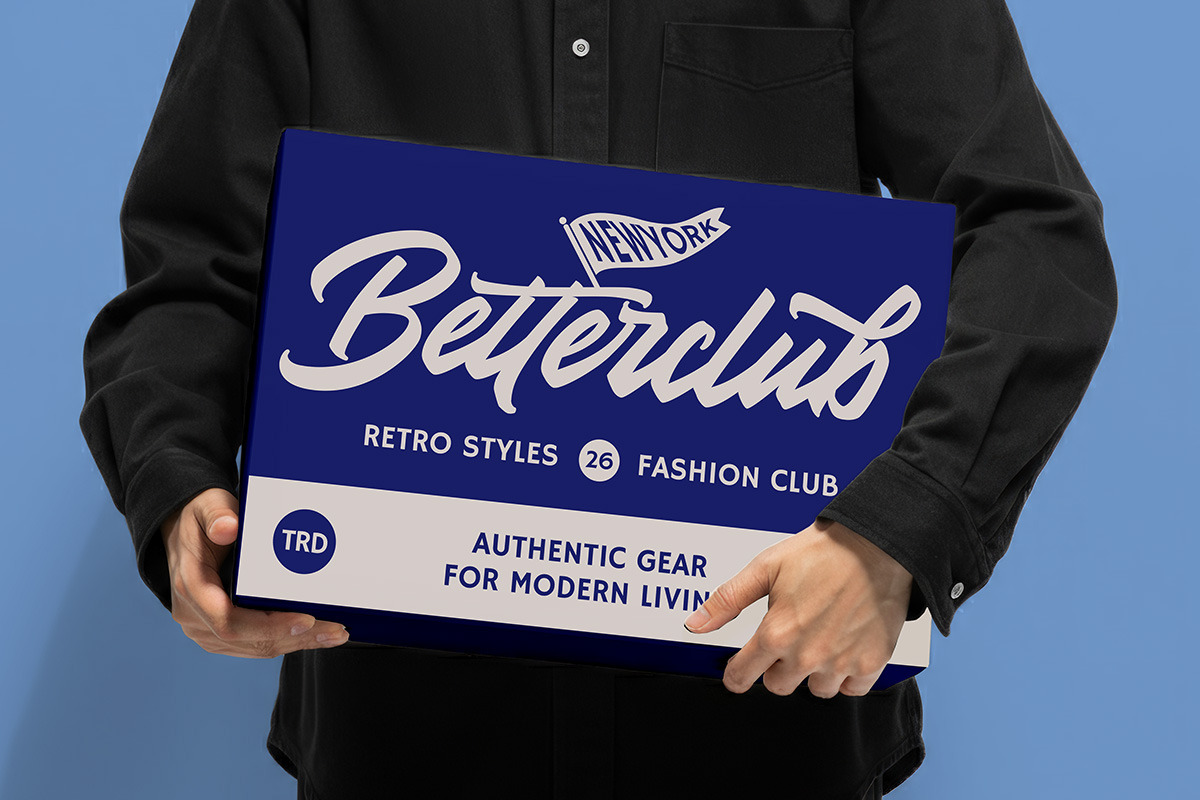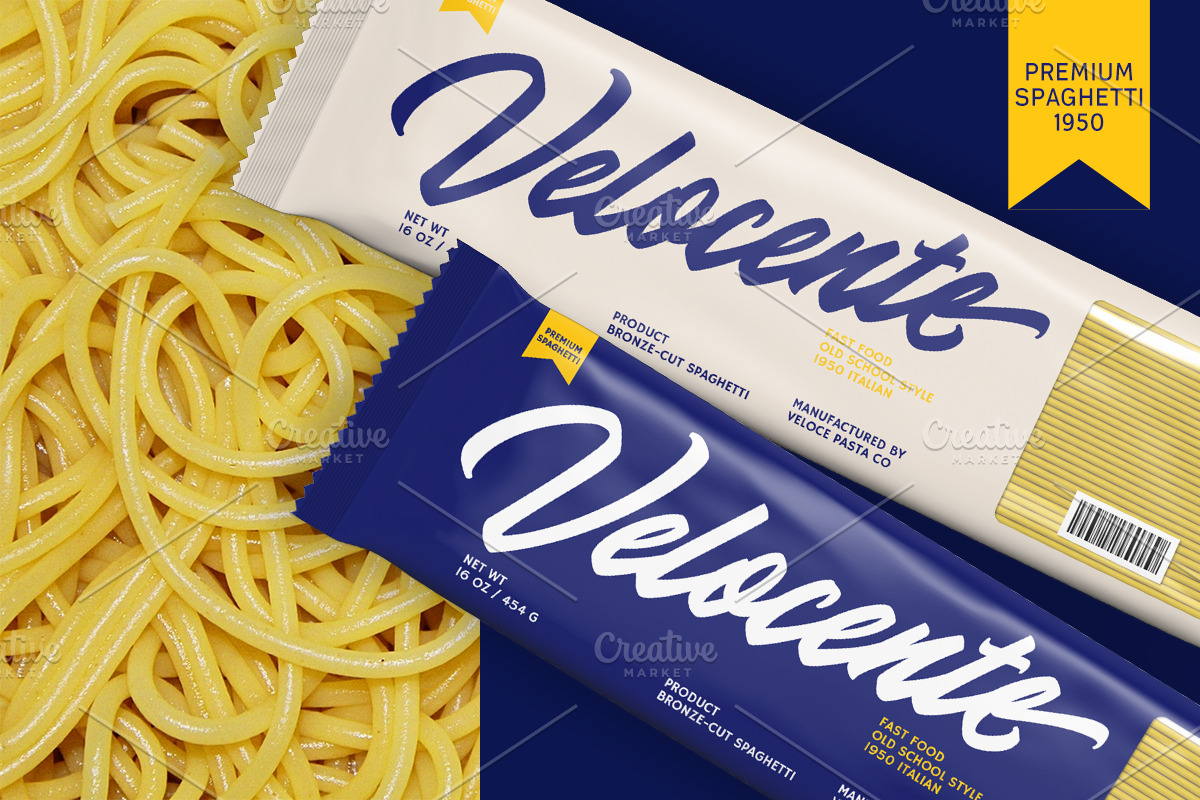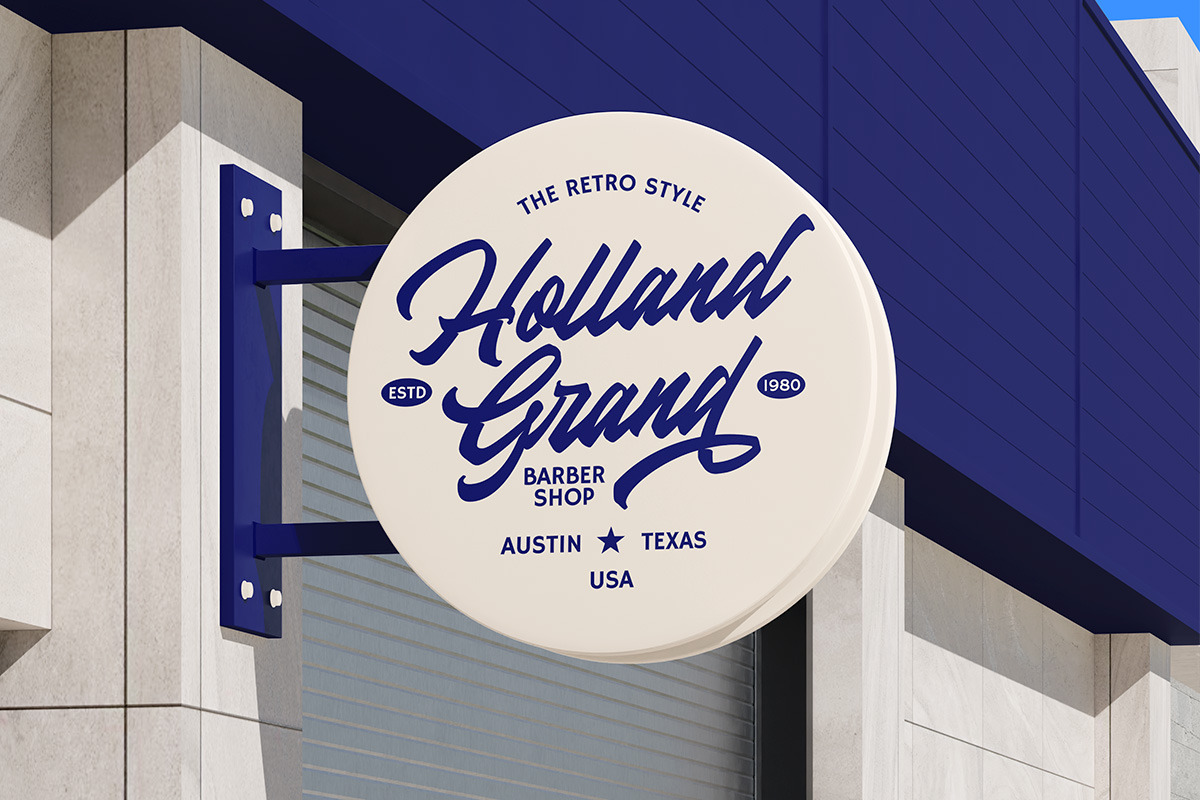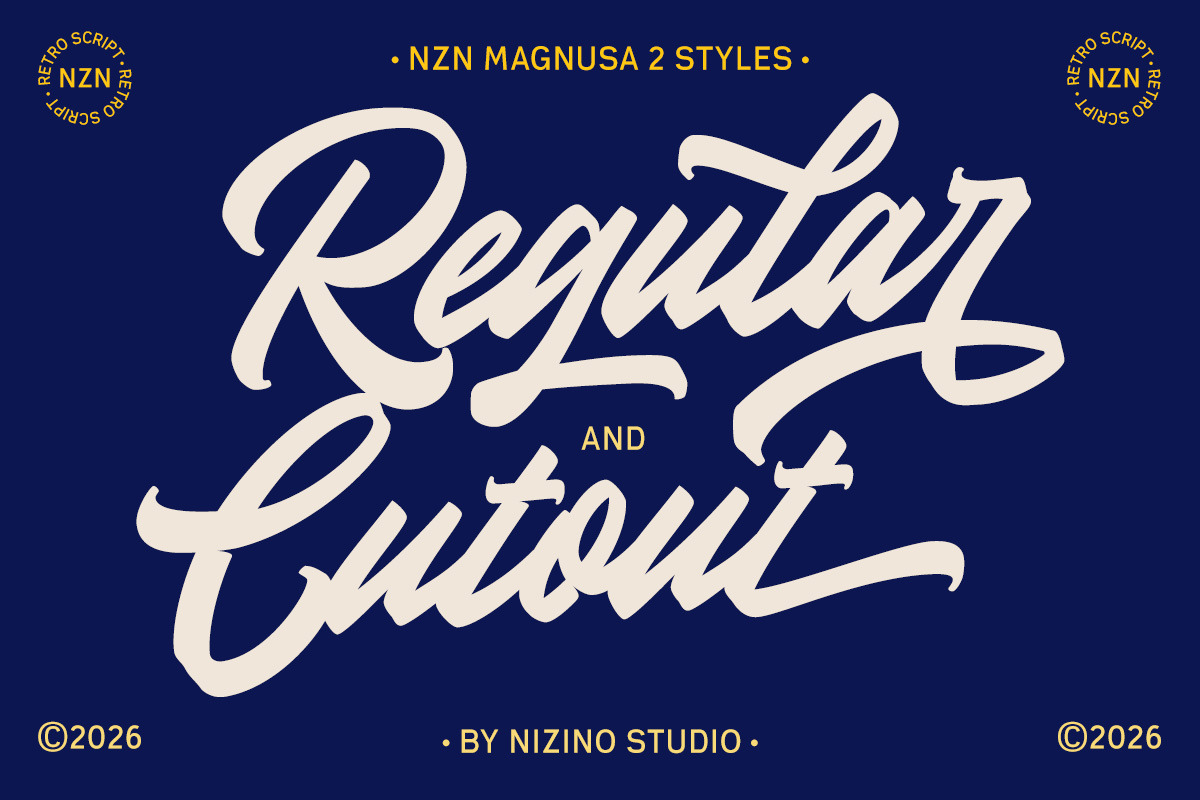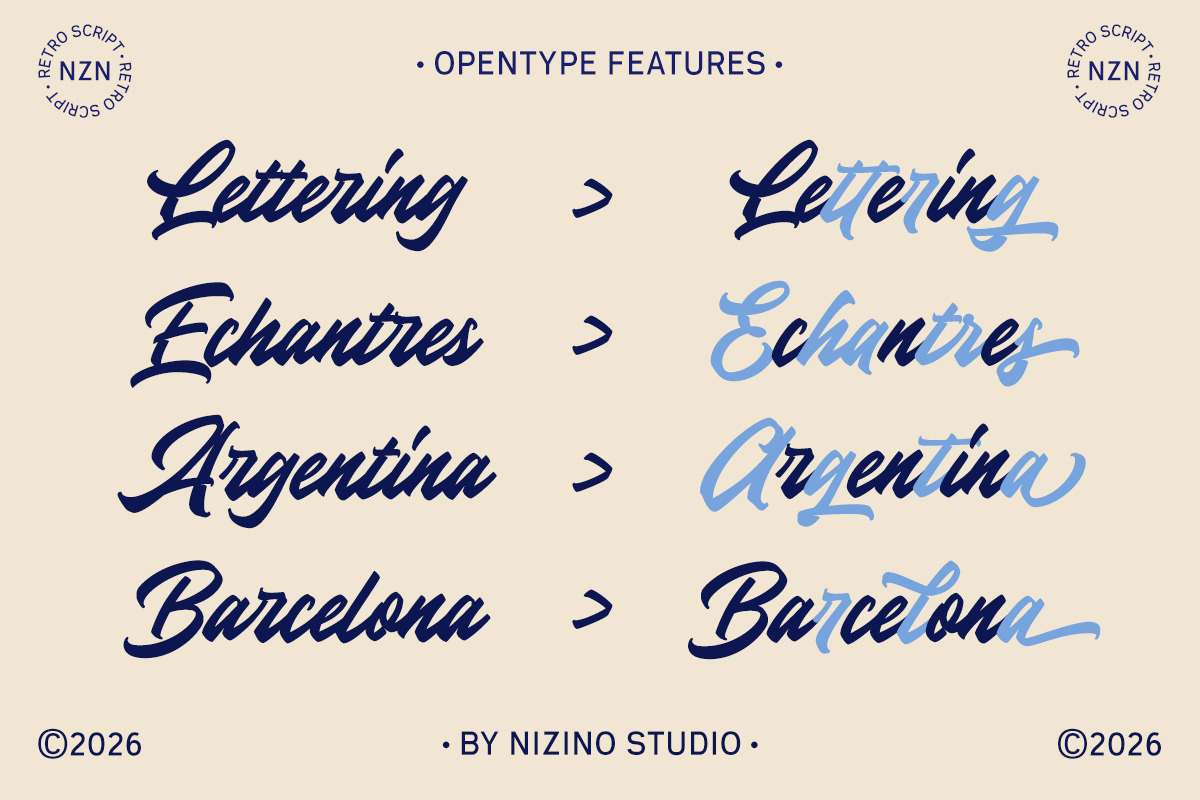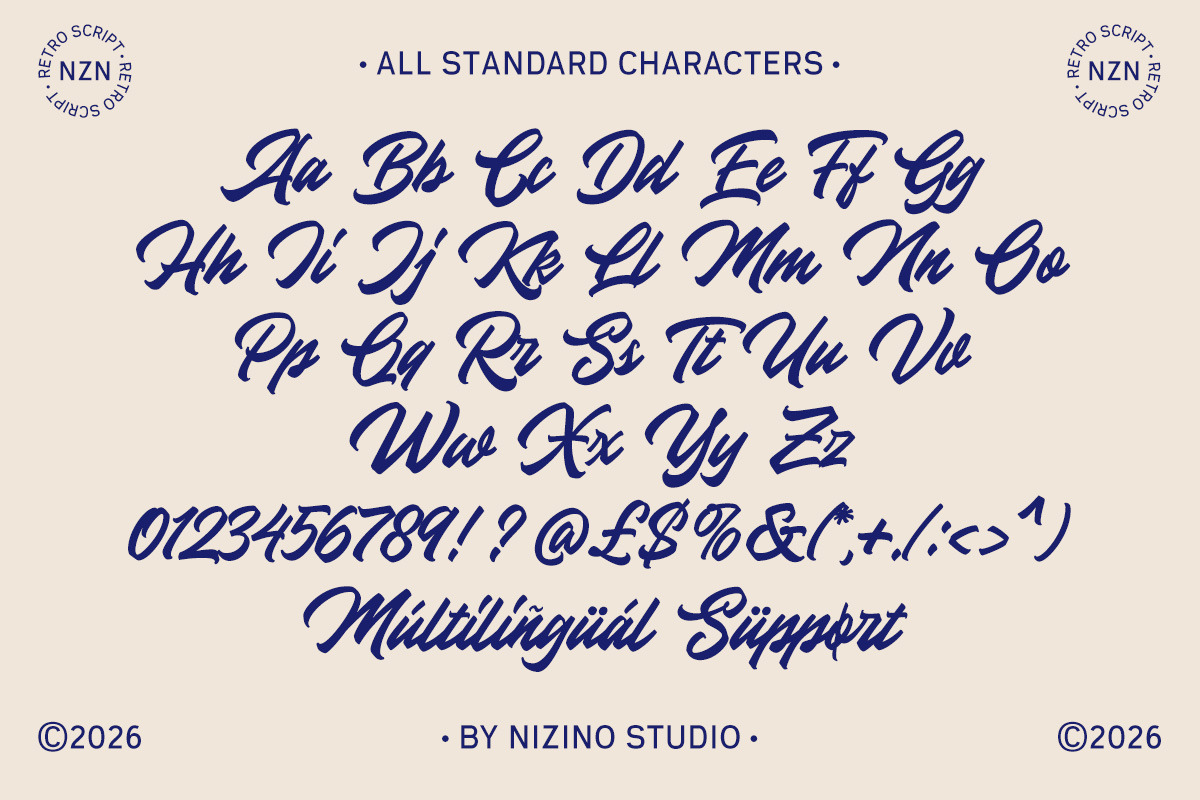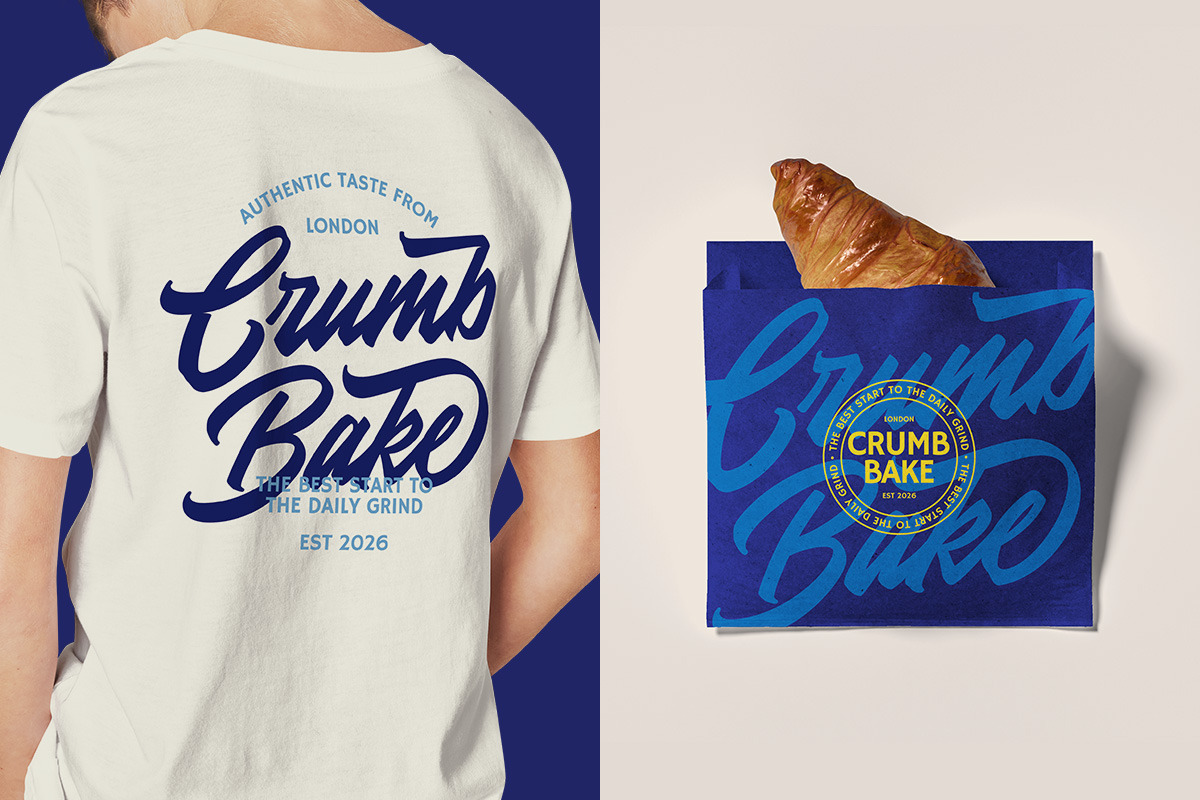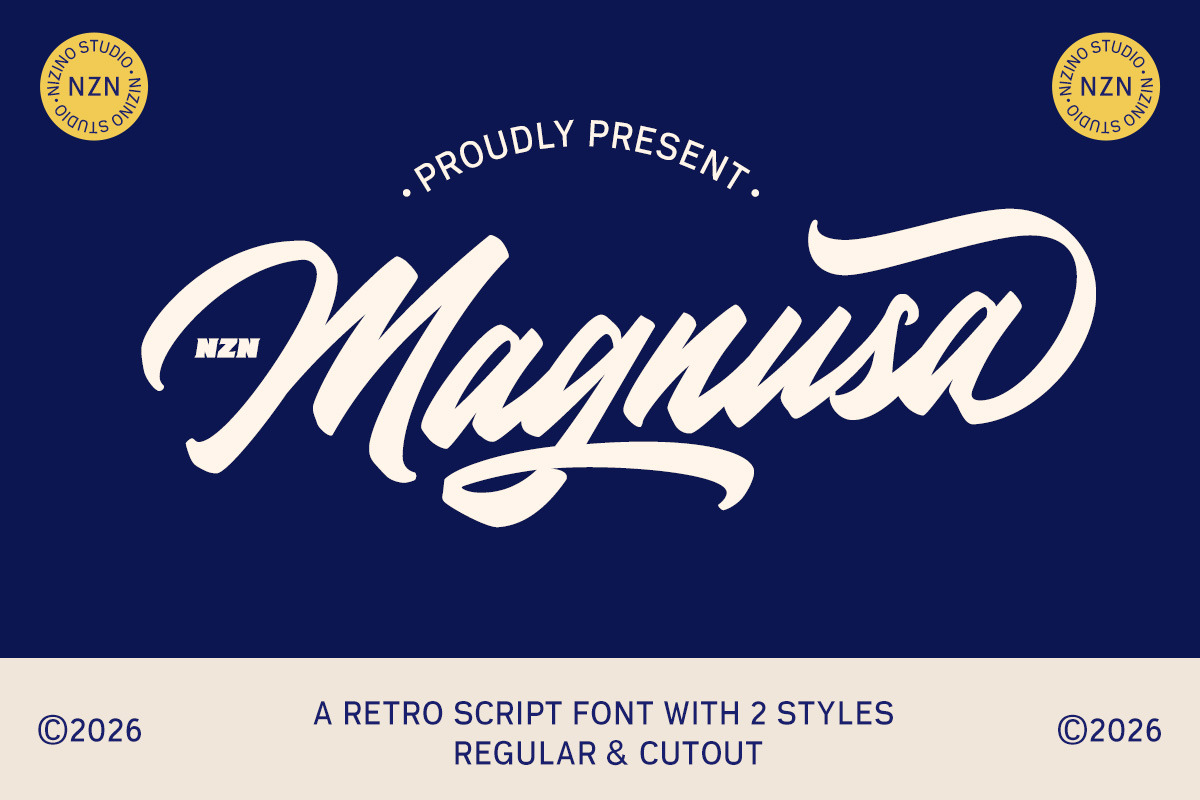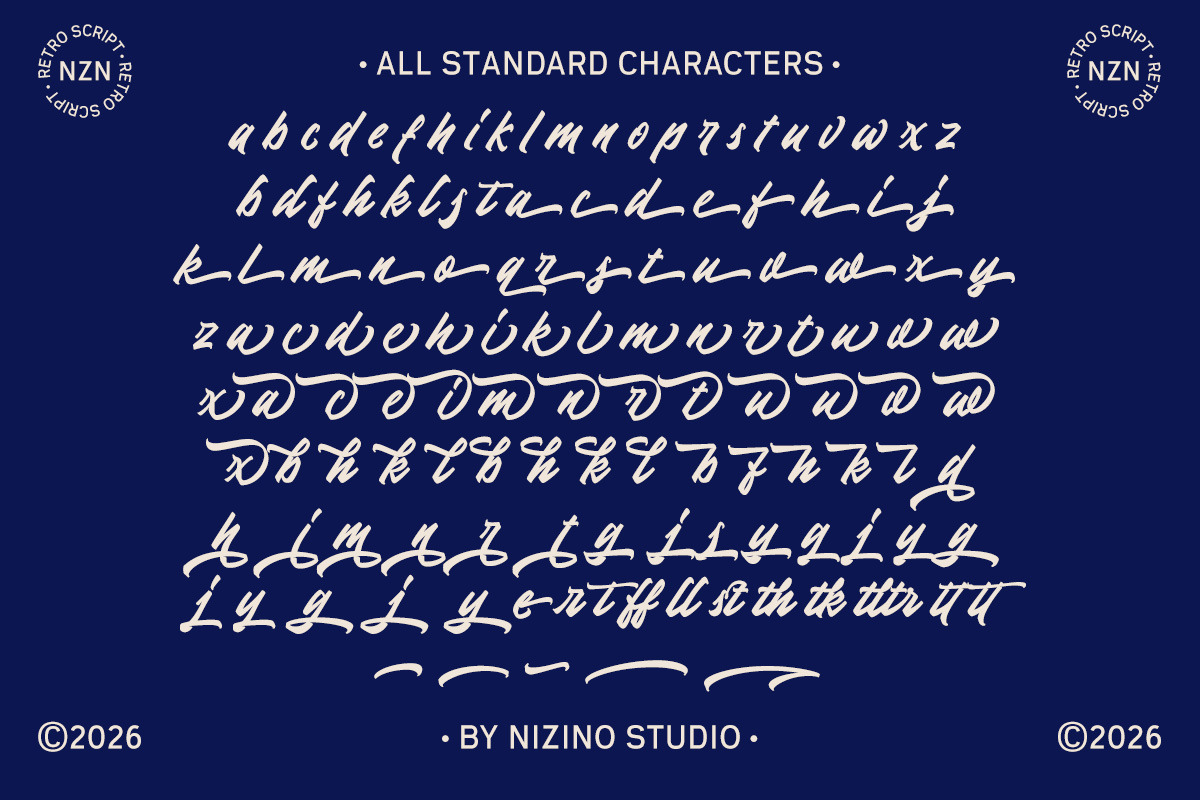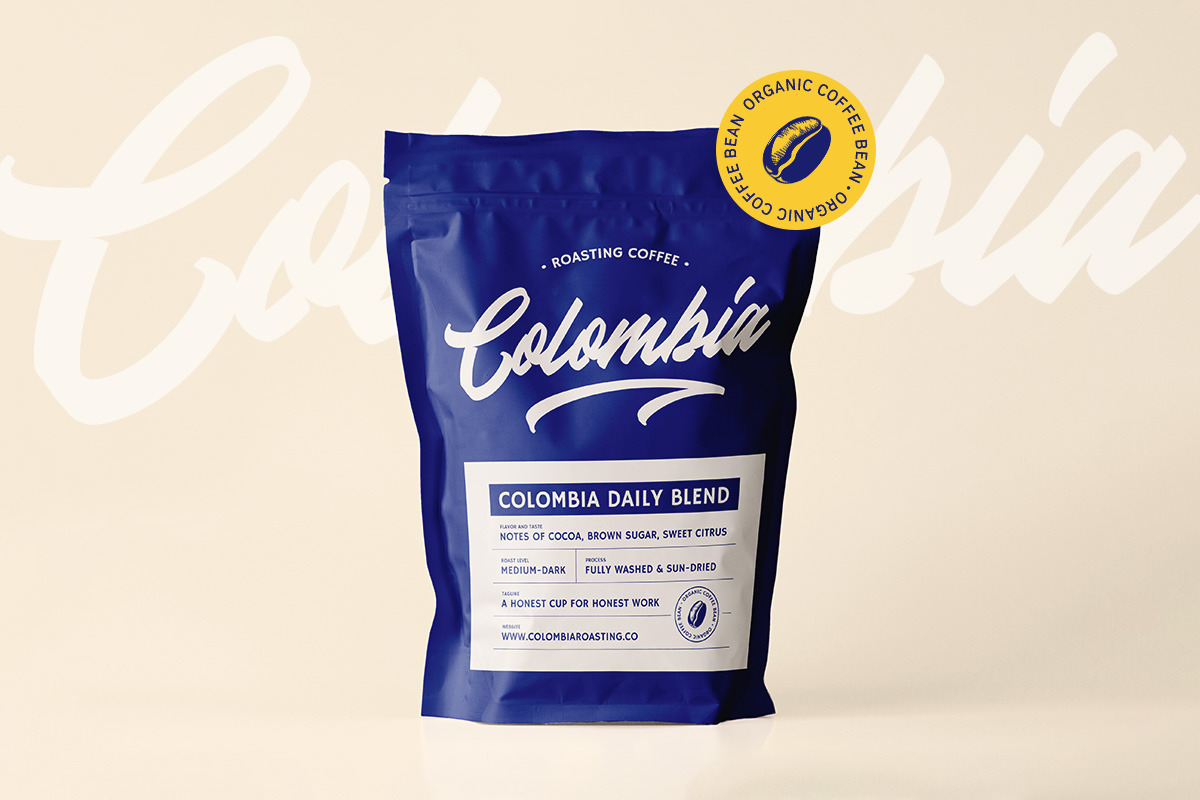
NZN Magnusa - Bold Script Font
NZN Magnusa is a bold script font designed for strong, expressive branding. Featuring dynamic strokes, smooth curves, and confident letterforms, this typeface delivers a powerful yet playful character that stands out instantly.
This script display font is ideal for logo design, wordmarks, t-shirt graphics, apparel branding, packaging, posters, signage, café branding, and merchandise. Its bold weight and flowing style make it perfect for projects that need impact, personality, and a handcrafted feel.
Inspired by vintage lettering and retro script typography, NZN Magnusa also fits modern design needs, making it versatile for both classic and contemporary branding styles. Whether you’re creating a lifestyle brand, streetwear label, or creative logo, NZN Magnusa brings energy and confidence to your typography.
- NZN Magnusa Regular
- NZN Magnusa Cutout
- Stylistic Set & Ligatures